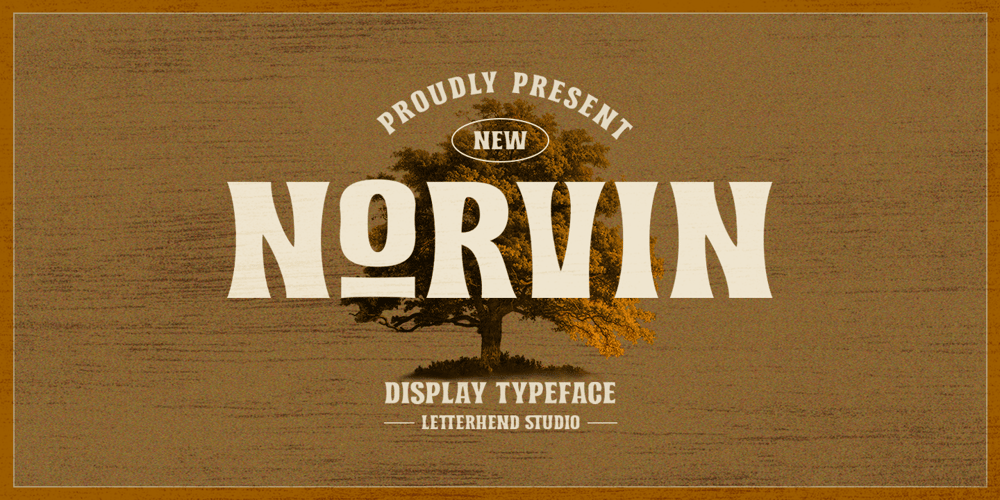
Norvin
Norvin font
Norvin Font Family was designed by Hendry Juanda and published by Letterhend. Norvin contains 1 styles and family package options. Norvin is a strong and bold sans serif with a touch of vintage look and feel. Comes with 38 bonus hand drawn illustration in vector and free 12 premade logo. This type of font perfectly made to be applied especially in logo, headline, signage and the other various formal forms such as invitations, labels, logos, magazines, books, greeting / wedding cards, packaging, fashion, make up, stationery, novels, labels or any type of advertising purpose.Features : Regular & Stamp version uppercase & lowercase numbers and punctuation multilingual alternates / swashes and ligatures PUA encoded We highly recommend using a program that supports OpenType features and Glyphs panels like many of Adobe apps and Corel Draw, so you can see and access all Glyph variations. How to access opentype feature : letterhend.com/tutorials/using-opentype-feature-in-any-software/